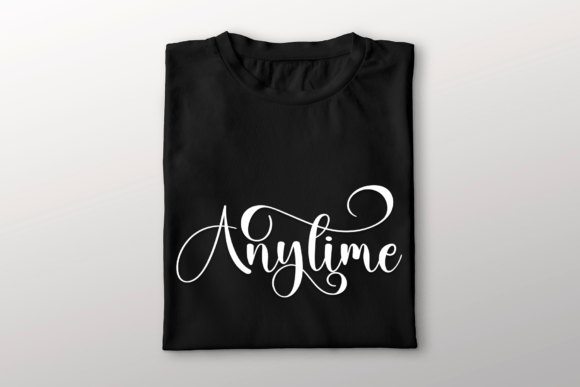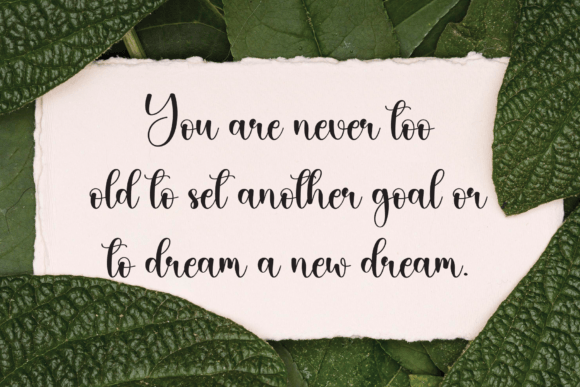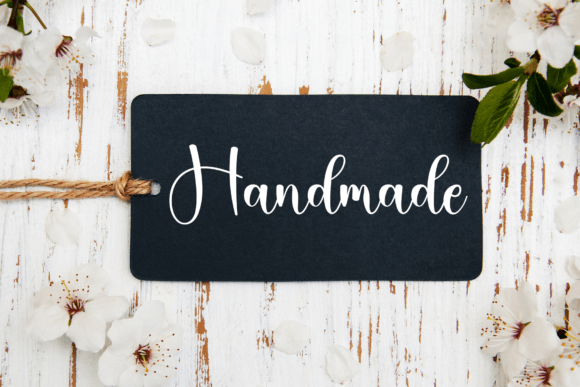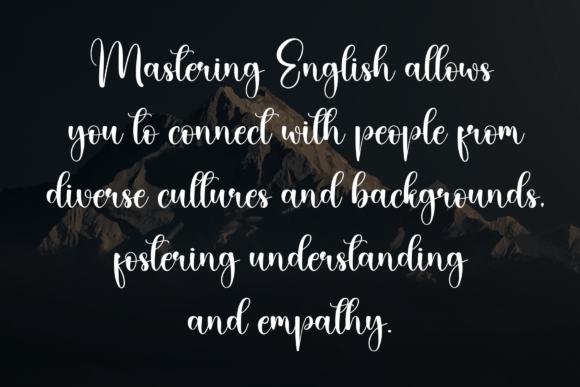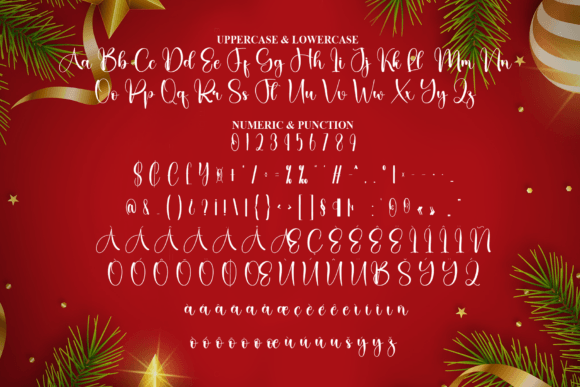
Introducing Angela Christmas Font: The Perfect Addition to Your Design Projects
Are you a designer or crafter looking for a unique and creative font to add a personal touch to your projects? Look no further than Angela Christmas Font! This handwritten font boasts a casual, one-of-a-kind style that is sure to make your designs stand out. With its smooth, flowing lines, Angela Christmas Font exudes a relaxed and personal feel that is perfect for a wide range of applications.
The Characteristics of Angela Christmas Font
Angela Christmas Font is a handwritten font that is characterized by its smooth, flowing lines and casual, unique style. The font has a relaxed and personal feel, making it perfect for adding a touch of creativity to any project. The letters are carefully crafted to have a natural, hand-written look, with subtle variations in line width and spacing that give the font a sense of authenticity.
Why Choose Angela Christmas Font?
So why choose Angela Christmas Font for your design projects? Here are just a few reasons:
- Unique Style: Angela Christmas Font has a one-of-a-kind style that will set your designs apart from the crowd. Its casual, handwritten look is perfect for adding a personal touch to your projects.
- Versatility: This font is versatile and can be used for a wide range of applications, from digital designs to print materials. Whether you’re creating a social media graphic, a blog post, or a marketing brochure, Angela Christmas Font is a great choice.
- High-Quality: Angela Christmas Font is a high-quality font that is designed to look great at any size. Whether you’re creating a large banner or a small social media graphic, the font will remain clear and legible.
Design Ideas Using Angela Christmas Font
Angela Christmas Font is a versatile font that can be used for a wide range of design projects. Here are a few ideas to get you started:
- Holiday Cards: Use Angela Christmas Font to create personalized holiday cards for friends and family.
- Social Media Graphics: Add a personal touch to your social media graphics with Angela Christmas Font. Use it to create eye-catching headlines, quotes, and more.
- Blog Posts: Use Angela Christmas Font to add a personal touch to your blog posts. It’s perfect for creating eye-catching headings and titles.
- Marketing Materials: Angela Christmas Font is a great choice for marketing materials, such as brochures, flyers, and posters.
Angela Christmas Font is a unique and creative font that is perfect for designers and crafters looking to add a personal touch to their projects. With its smooth, flowing lines and casual, handwritten style, this font is sure to make your designs stand out. Whether you’re creating holiday cards, social media graphics, or marketing materials, Angela Christmas Font is a great choice. So why not give it a try and see how it can add a touch of creativity to your designs?